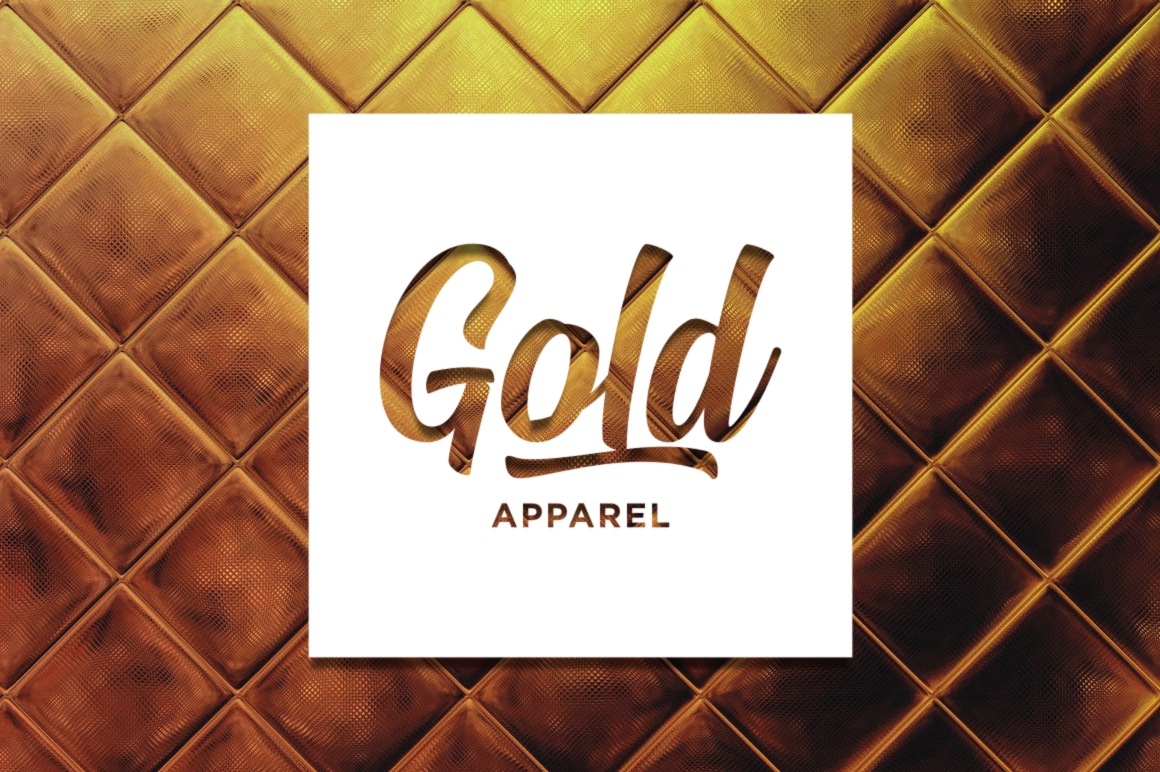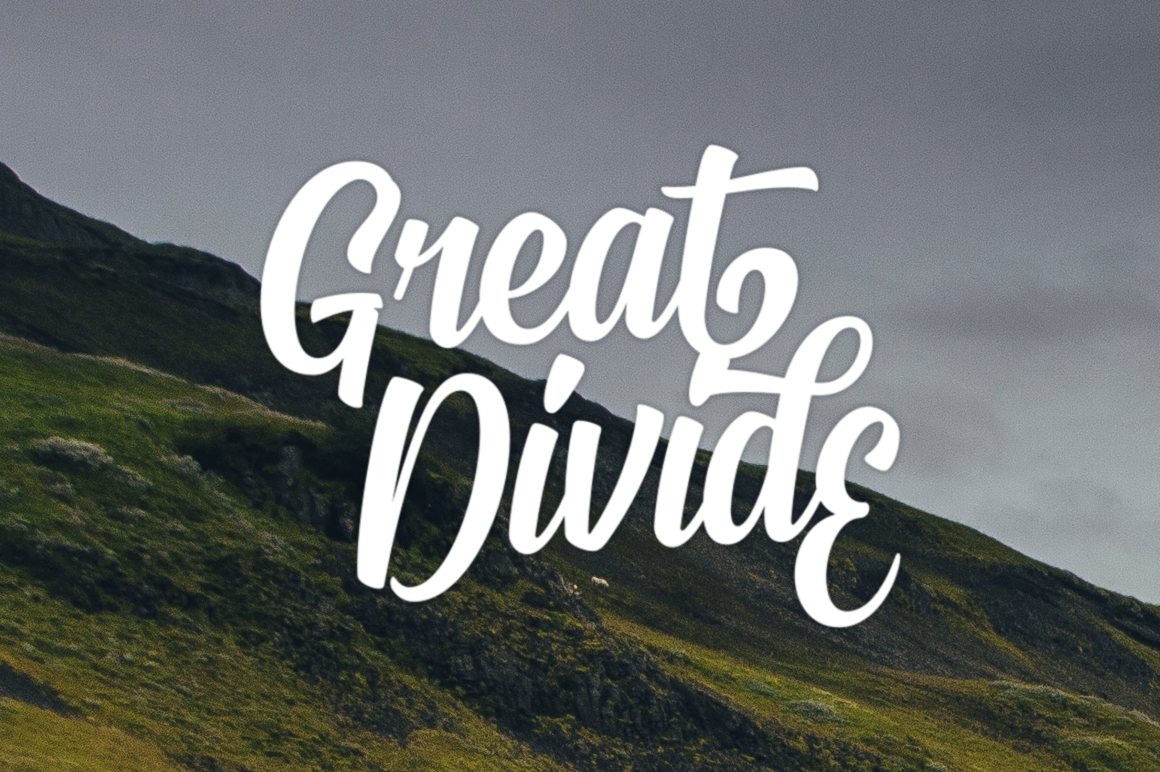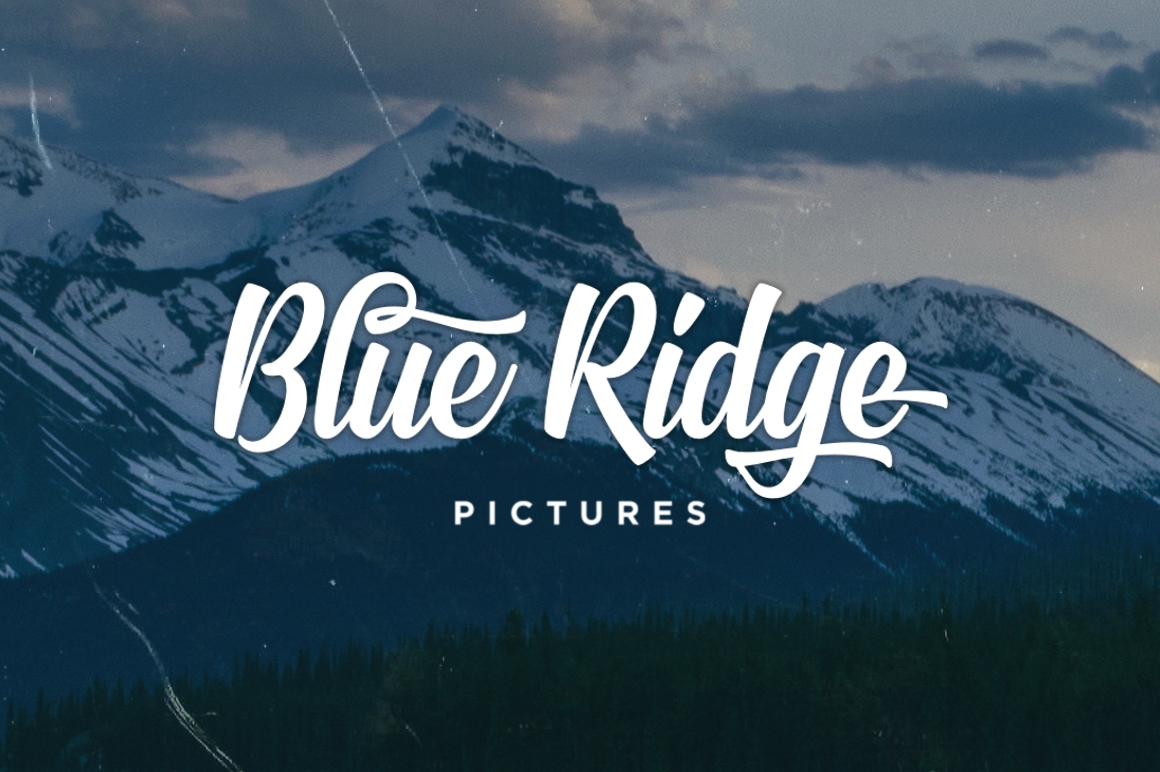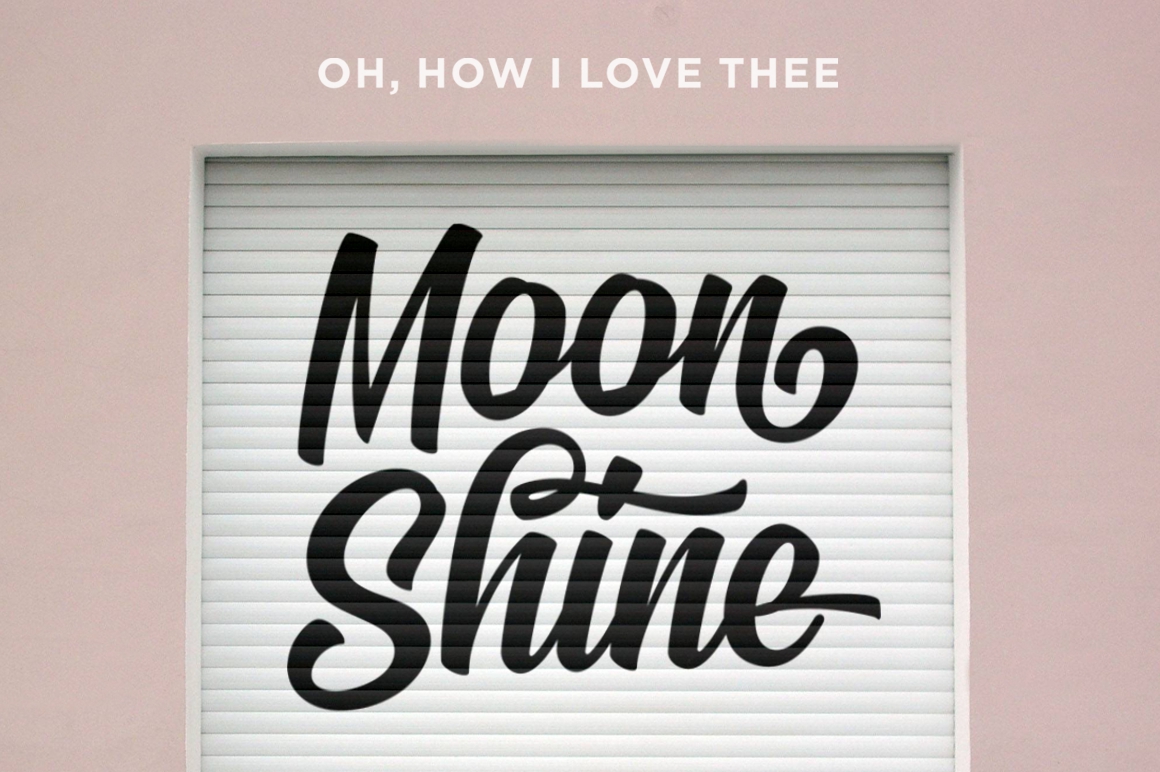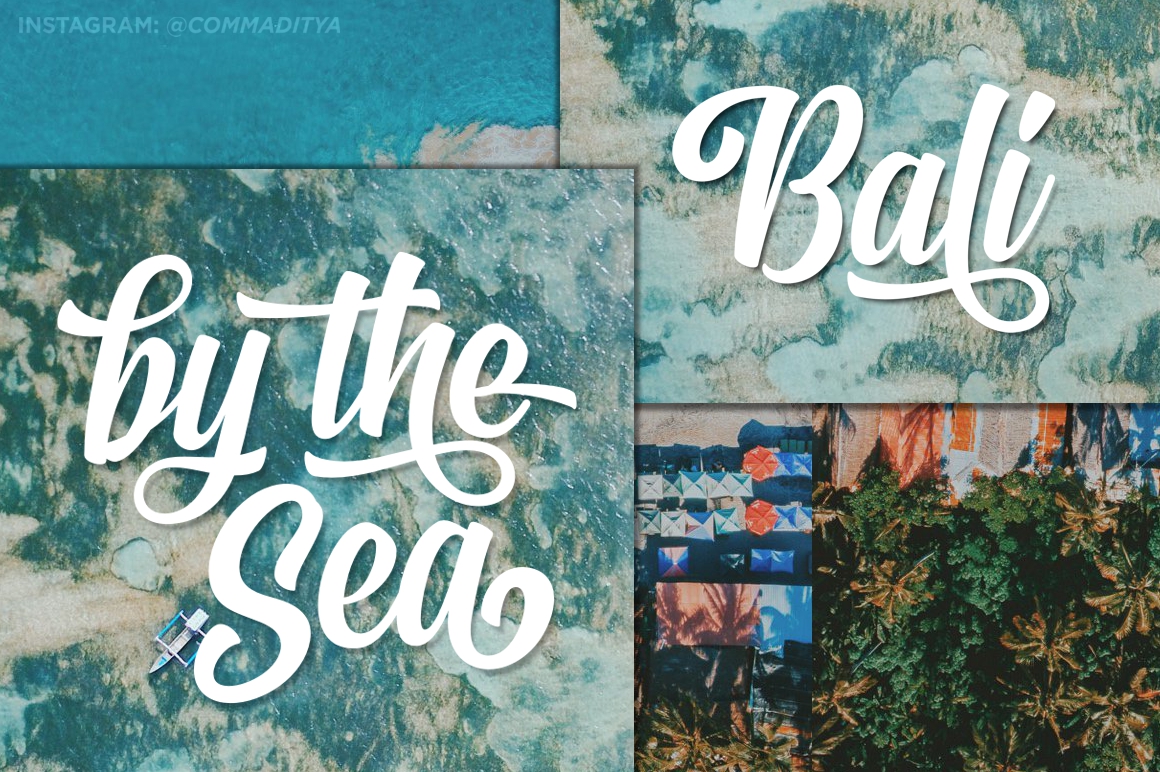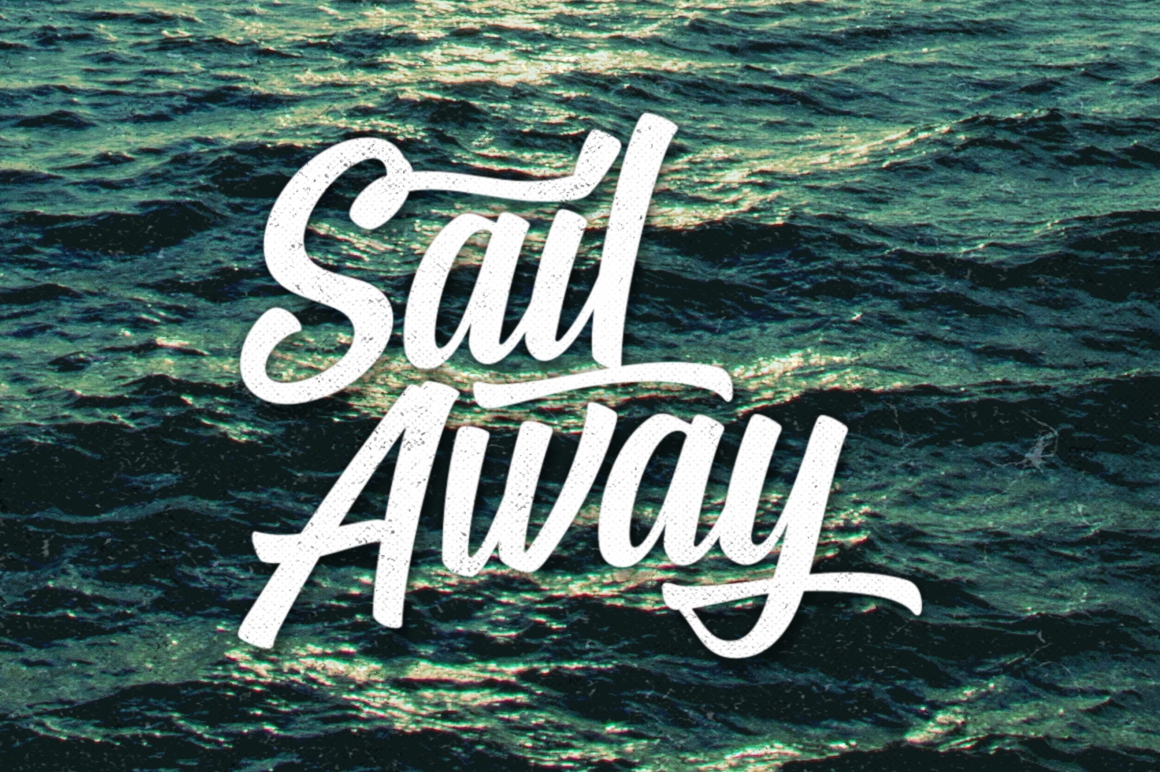
Introduction to Signatra Script Font
Have you ever been working on a creative project, pouring your heart and soul into it, and suddenly, the perfect font slips your mind? You imagine the perfect typography, but it’s nowhere to be found. That’s where Signatra Script Font comes in – a game-changing design resource that will elevate your projects to the next level.
With its clean and playful yet trendy style, Signatra Script Font offers a natural hand-lettering/sign-painting experience like no other. Its bold style and exceptional presence make it a valuable asset for designers seeking high-quality typography. Whether you’re working on a personal project or a client-based design, Signatra Script Font is sure to make a lasting impression.
What sets Signatra Script Font apart is its exceptional detail and versatility. From a transparent background to a free download, this font is designed to meet the needs of designers, making it an invaluable addition to any design arsenal.
Key Features of Signatra Script Font
- High-quality, elegant script font ideal for creative projects, such as wedding invitations, greeting cards, and other design resources.
- Unique, handwritten style with a touch of elegance, making it perfect for adding a personal touch to any design project.
Honest Review: Signatra Script Font
I’ve had the pleasure of working with the Signatra Script Font for my latest creative project, and I must say it’s been a game-changer. This high-quality font has elevated the entire design, giving it a touch of elegance and sophistication.
One of the standout features of Signatra Script Font is its versatility. I’ve used it for a variety of design elements, from logos to social media graphics, and it’s performed exceptionally well each time. The transparent background makes it easy to layer and combine with other design resources, giving me endless possibilities for creativity.
- ⚠️ Limited character set, may require additional fonts for more complex designs
- ⚠️ Not suitable for large block of text, may be more effective for smaller, more decorative elements
Overall, I’m thoroughly impressed with the Signatra Script Font. While it may have some limitations, its benefits far outweigh any drawbacks. I highly recommend it as a design resource for anyone looking to add a touch of sophistication to their creative project.
The Signatra Script Font is ideal for use in wedding invitations, greeting cards, and other design projects where a touch of elegance and sophistication is required. It’s also a great design resource for creating high-quality, visually appealing content for social media, blogs, and websites.
To get the most out of the Signatra Script Font, use it in a design project where its high-quality, cursive style can shine. Experiment with different font sizes, colors, and backgrounds to create a unique and visually appealing design. You can also use the Signatra Script Font in combination with other fonts to create a beautiful and harmonious typography.